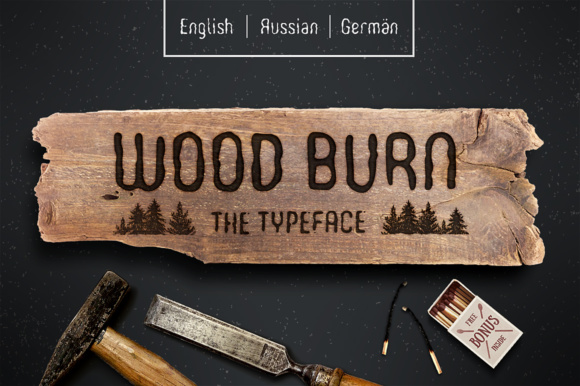
Behold! The Woodburn Font is a captivating typographic masterpiece that will ignite your creative passions. Step into a world of visual brilliance where every letter is a work of art. This meticulously crafted sans serif typeface exudes a sense of authenticity, warmth, and timeless elegance. It's the perfect font for designers, bloggers, and content creators seeking to make an unforgettable impression.
Immerse yourself in the natural beauty of Woodburn. The regular style captivates with its smooth, flowing lines, while the bold style commands attention with its strong, assertive strokes. Experience the joy of effortlessly creating stunning designs that resonate with your audience.
With Woodburn, the possibilities are endless. Whether you're designing logos, crafting social media posts, or writing blog articles, this font will elevate your work to new heights. Its versatility shines through in the variety of settings where it can be used. From rustic and vintage designs to modern and minimalist creations, Woodburn adapts seamlessly, enhancing your message with a touch of sophistication and charm.
But Woodburn is more than just a pretty face. It's a font that truly connects with your audience on an emotional level. Its warm and inviting nature creates a sense of connection, drawing readers in and captivating their attention. Watch as your words come to life, leaving a lasting impression on anyone who encounters them.